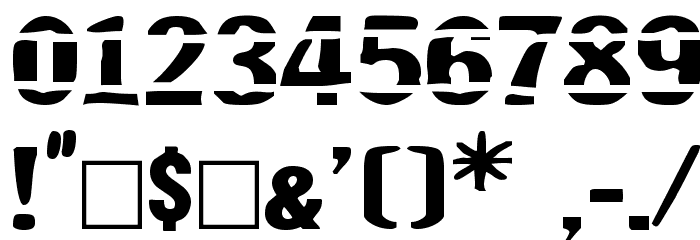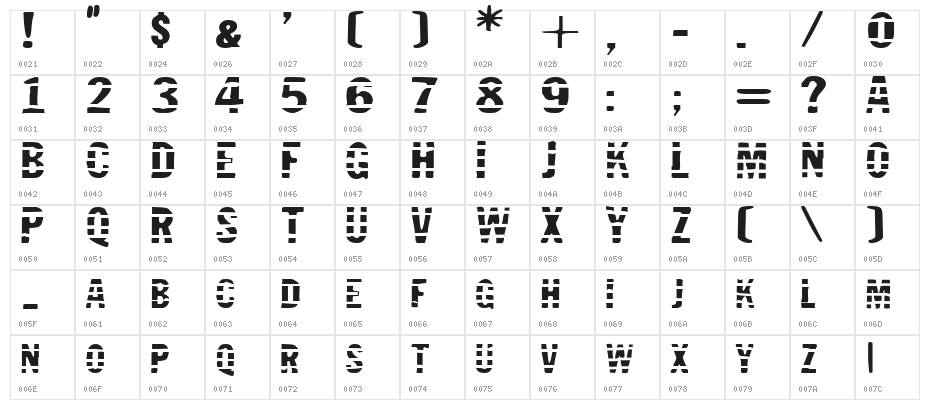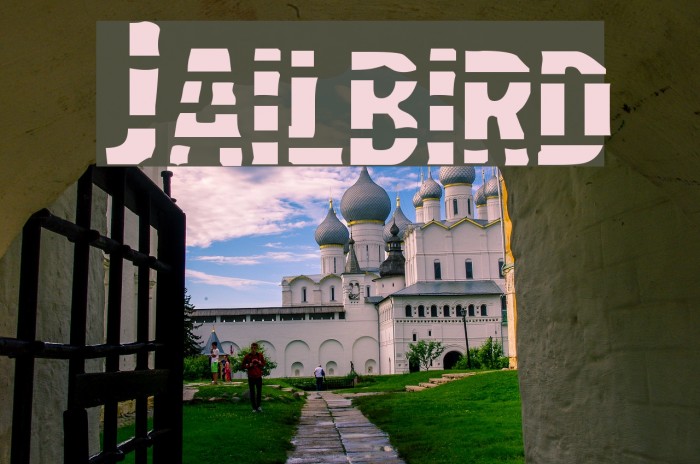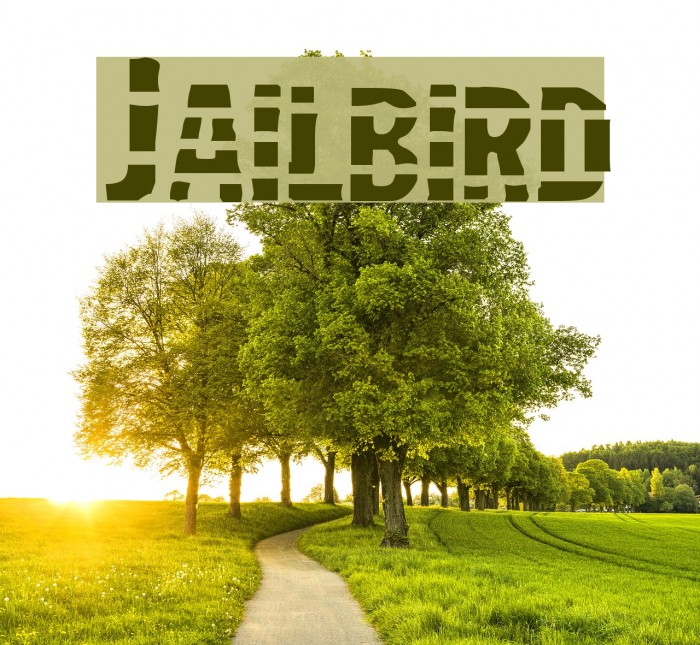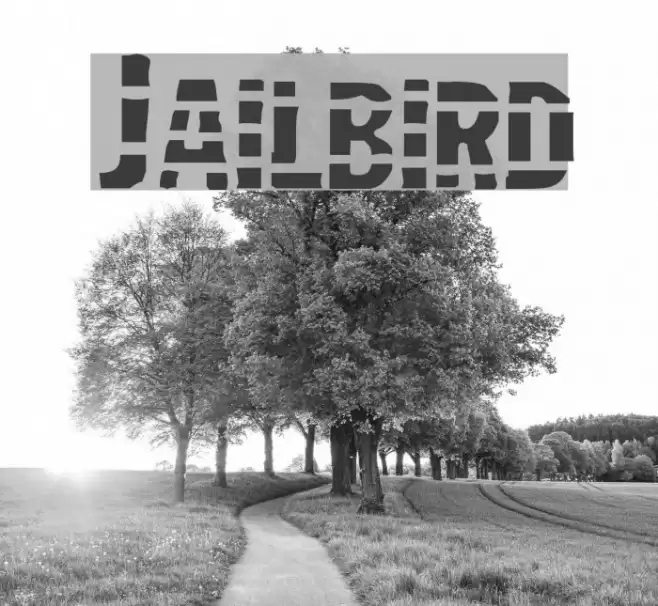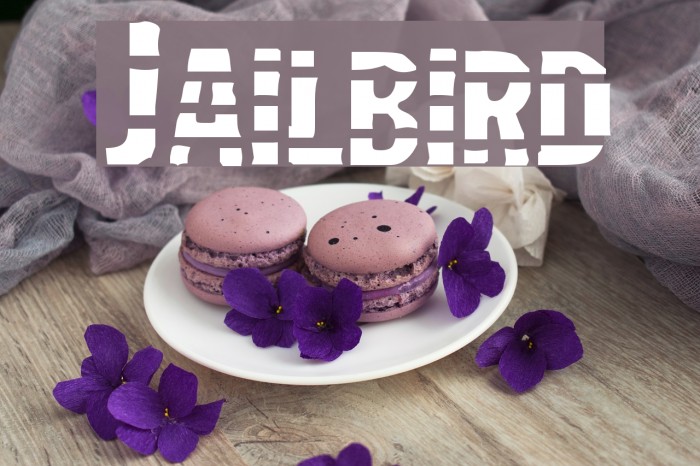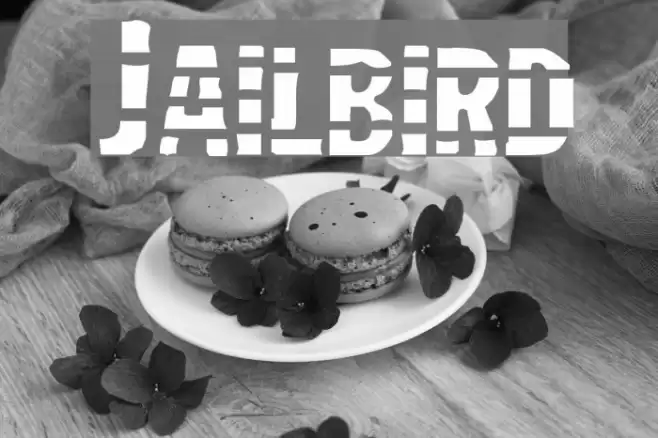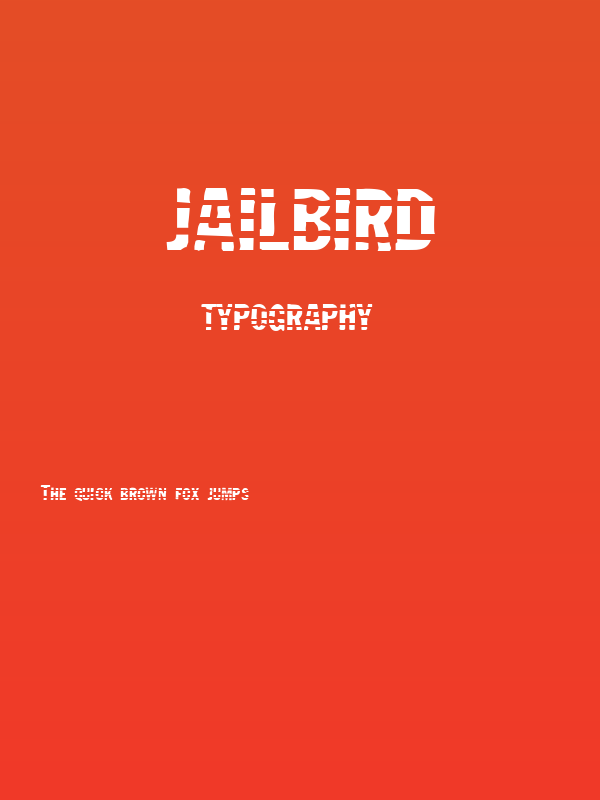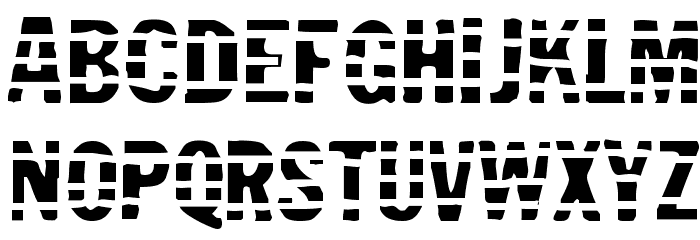
Jailbird Font
Jailbird Description
This font features a bold, stencil-like design with a distinctive cut-out pattern that gives it a rugged and industrial appearance. The uppercase and lowercase letters maintain a consistent style, with thick strokes and sharp edges that create a strong visual impact. The numbers and special characters follow the same design principles, ensuring uniformity across all glyphs. The font's unique aesthetic is reminiscent of prison bars or military stencils, making it ideal for projects that require a bold and assertive look.
| Overall Style | Industrial, Bold, Stencil |
| Proposed Projects | Ideal for posters, signage, branding, and any project needing a bold, industrial aesthetic. |